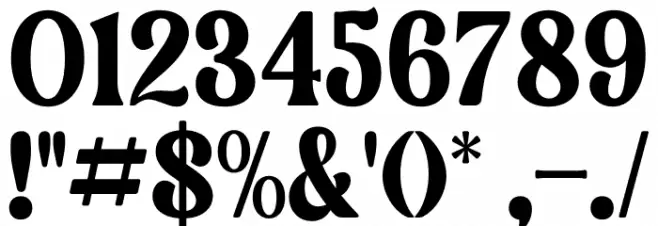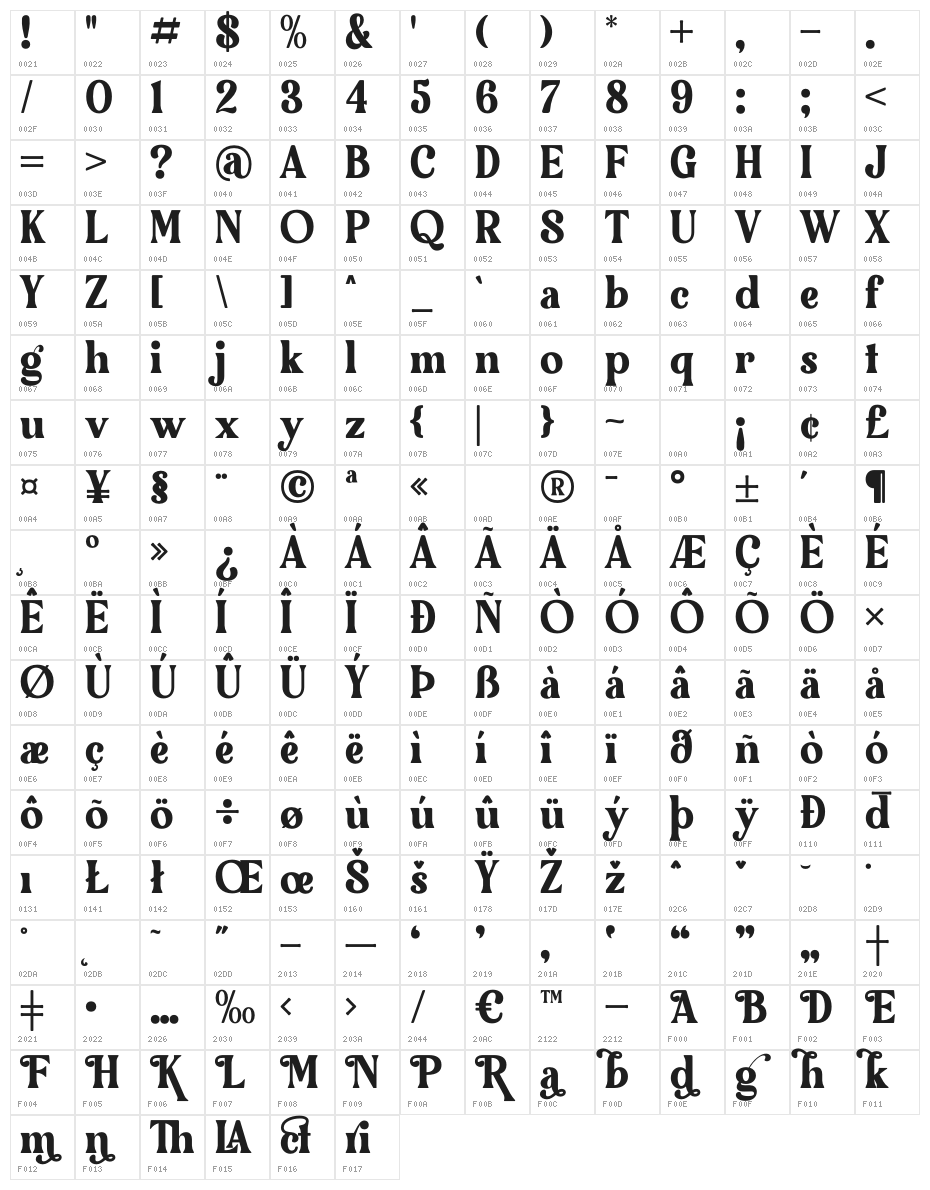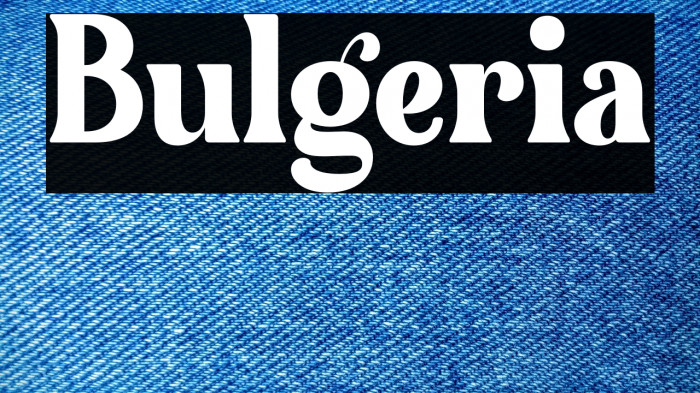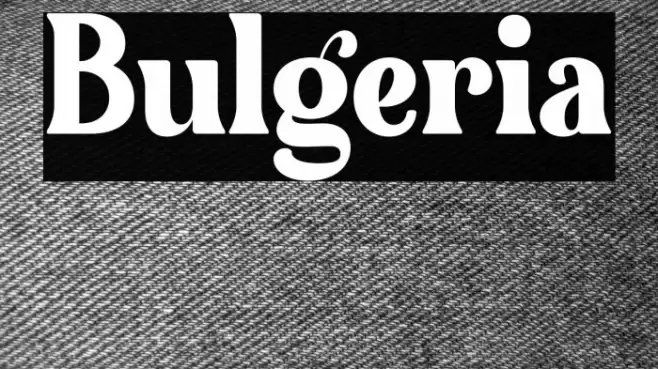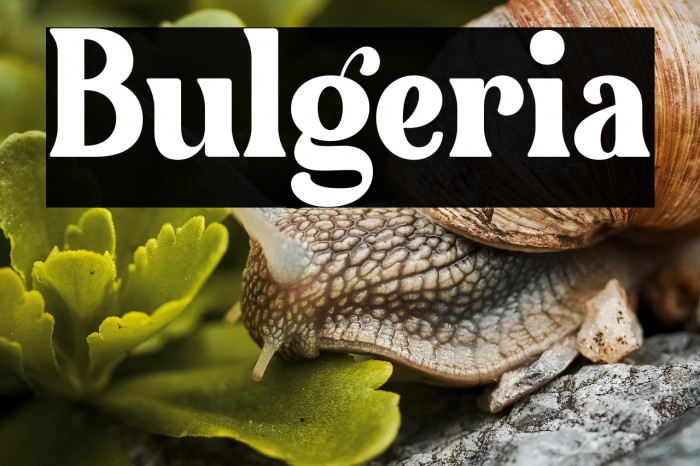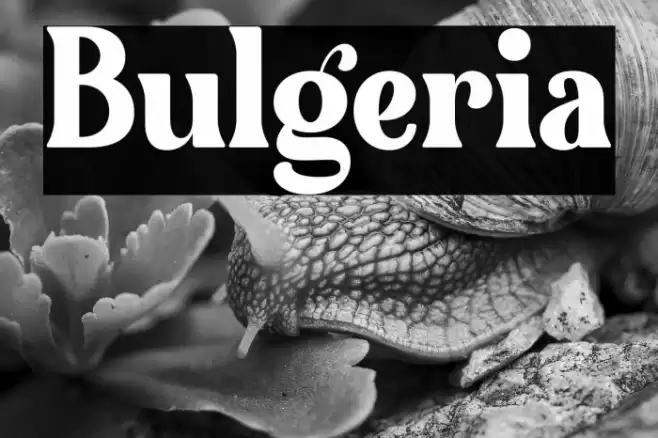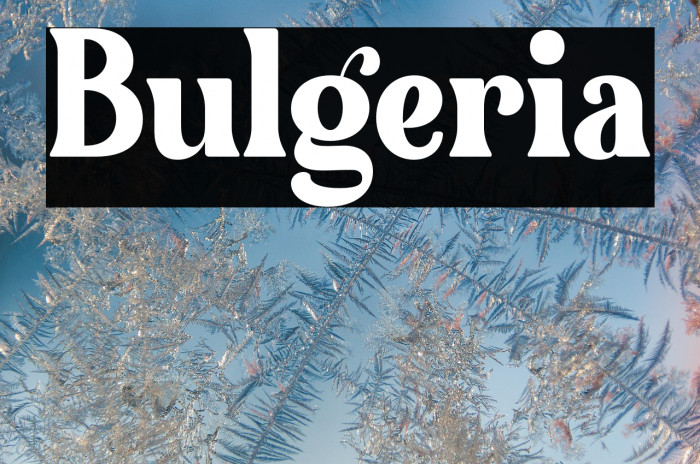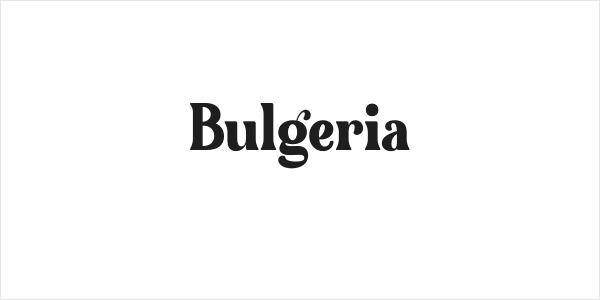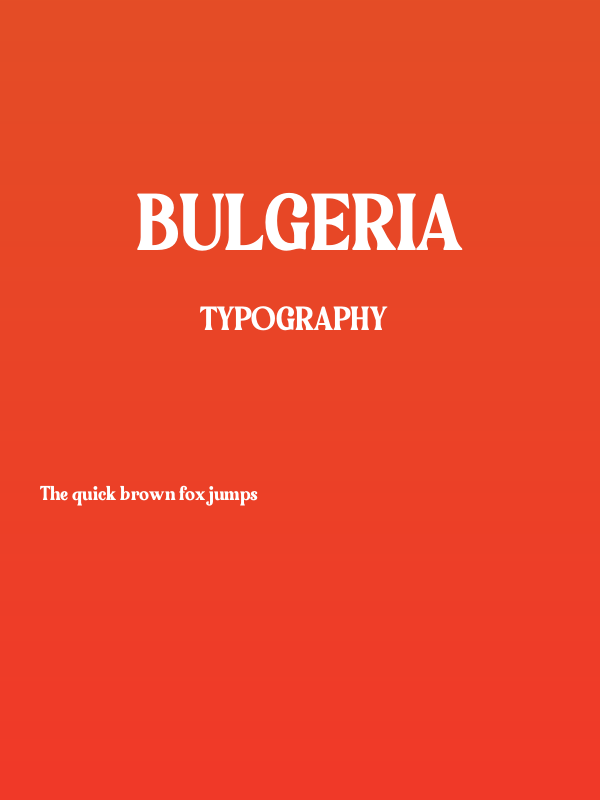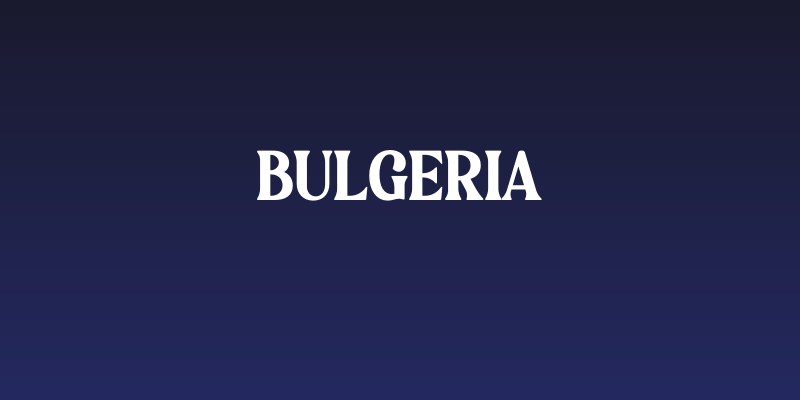
Bulgeria Font
Bulgeria Description
This font features a bold and expressive style with thick, rounded serifs that give it a strong presence. The characters are well-defined with a high contrast between thick and thin strokes, adding to its dramatic appearance. The uppercase letters are tall and commanding, while the lowercase letters maintain a consistent weight, ensuring readability. The numerals are equally bold, matching the overall aesthetic of the alphabet. Special characters are included, maintaining the same bold style, making this font versatile for various uses.
| Proposed Projects | Ideal for branding, headlines, posters, and any design that requires a strong, impactful typeface. |